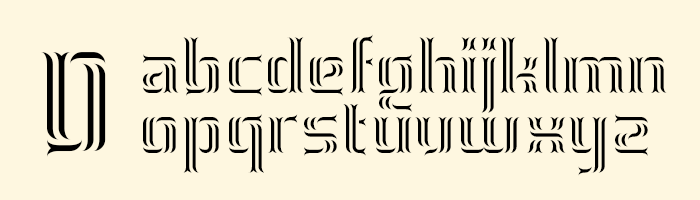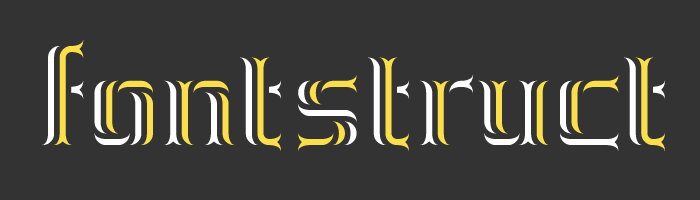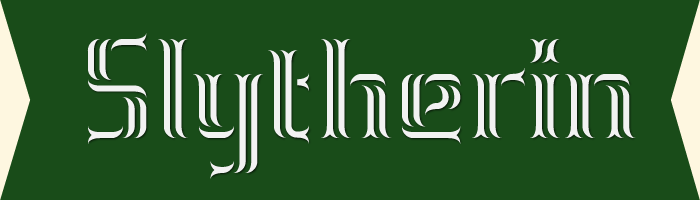
Honestly have to publish this now cause I thought there's still time. Haven't thought of a name yet...
Looks like designed for tattoos!
This is beautiful! 10/10
Congratulations! FontStruct Staff have deemed your FontStruction worthy of special mention. “AT Rozalla” is now a Top Pick.
It's cute. I love twisted fonts. Even the dot in the 'i' is cute.